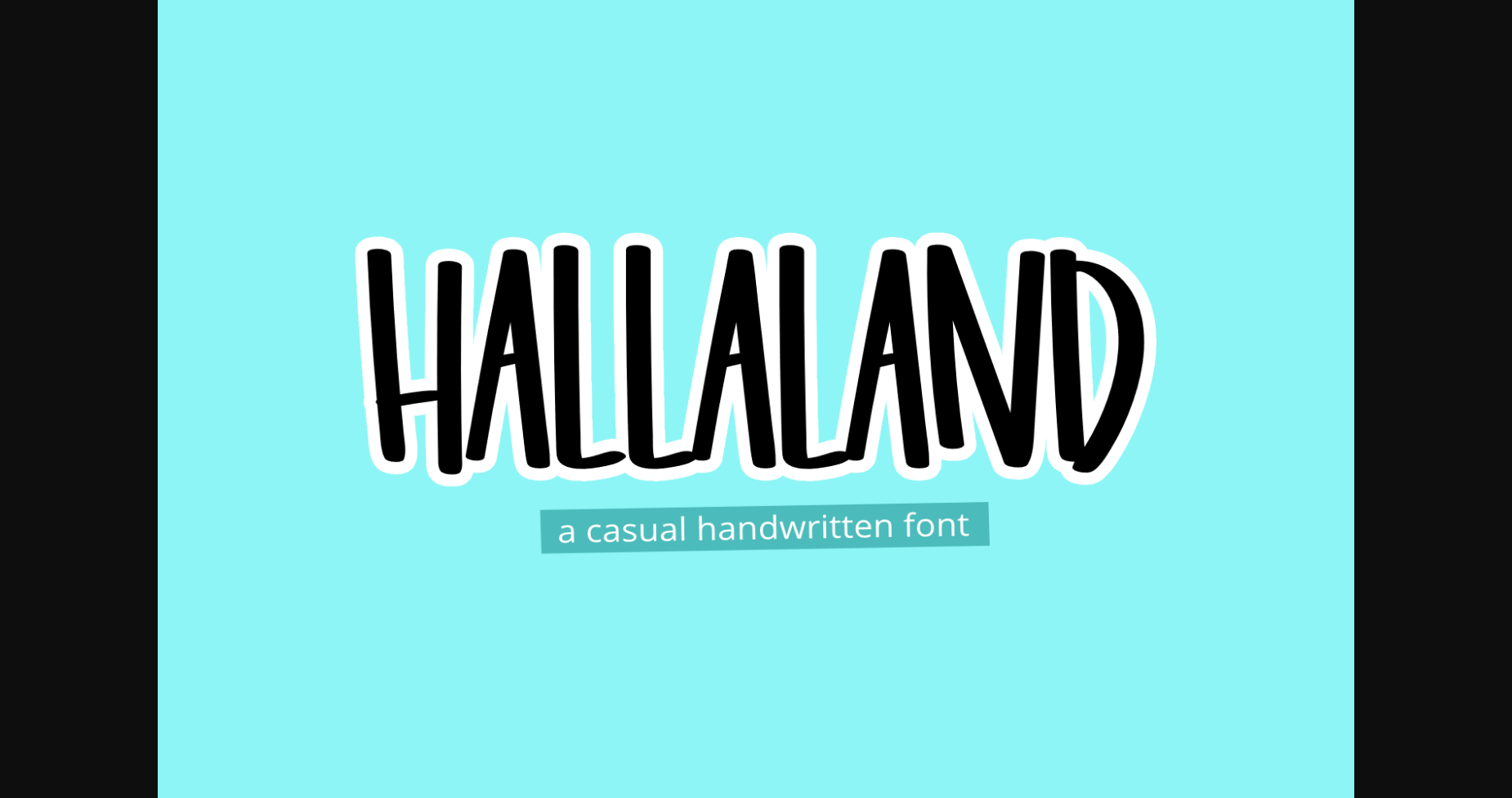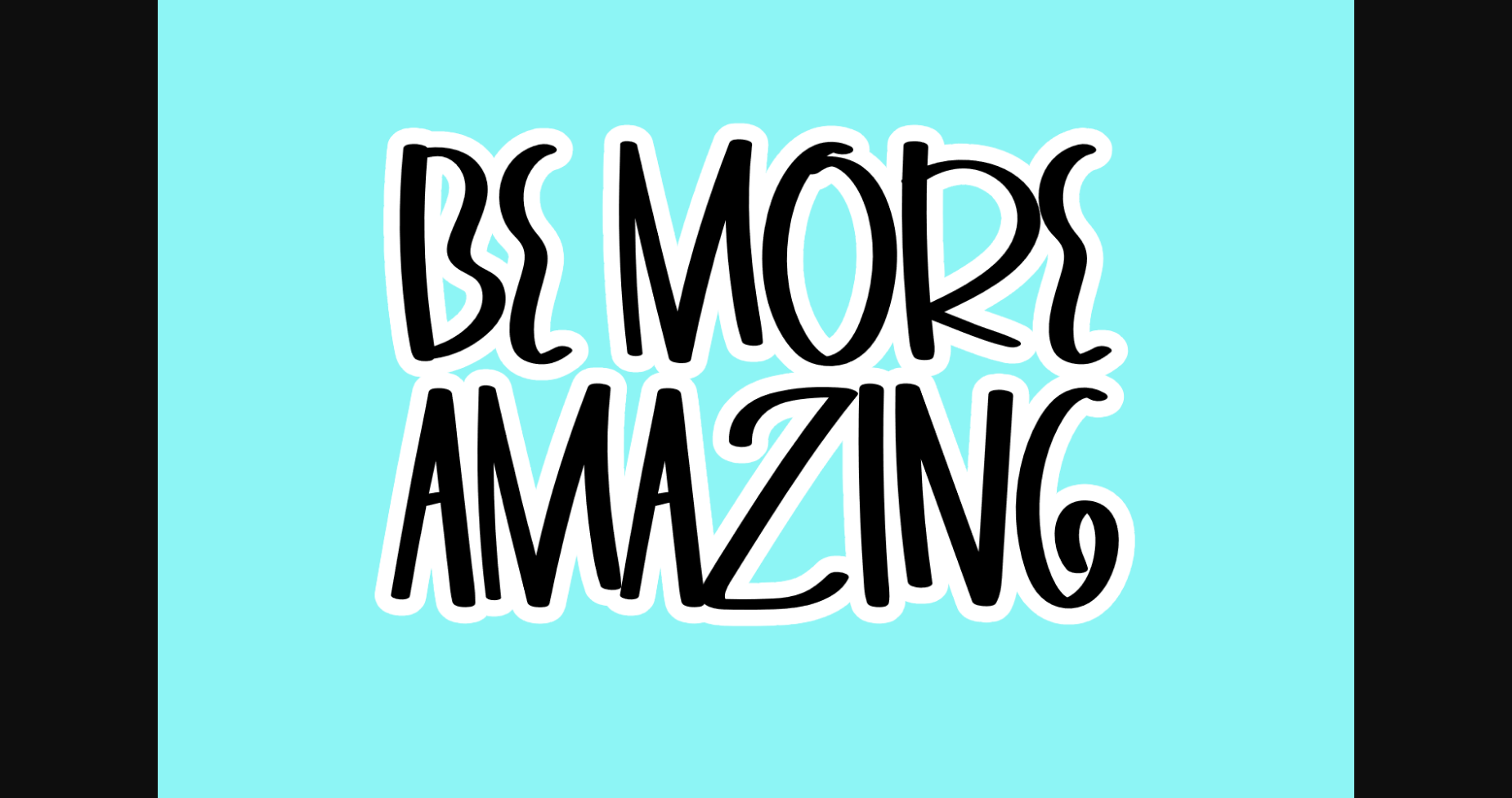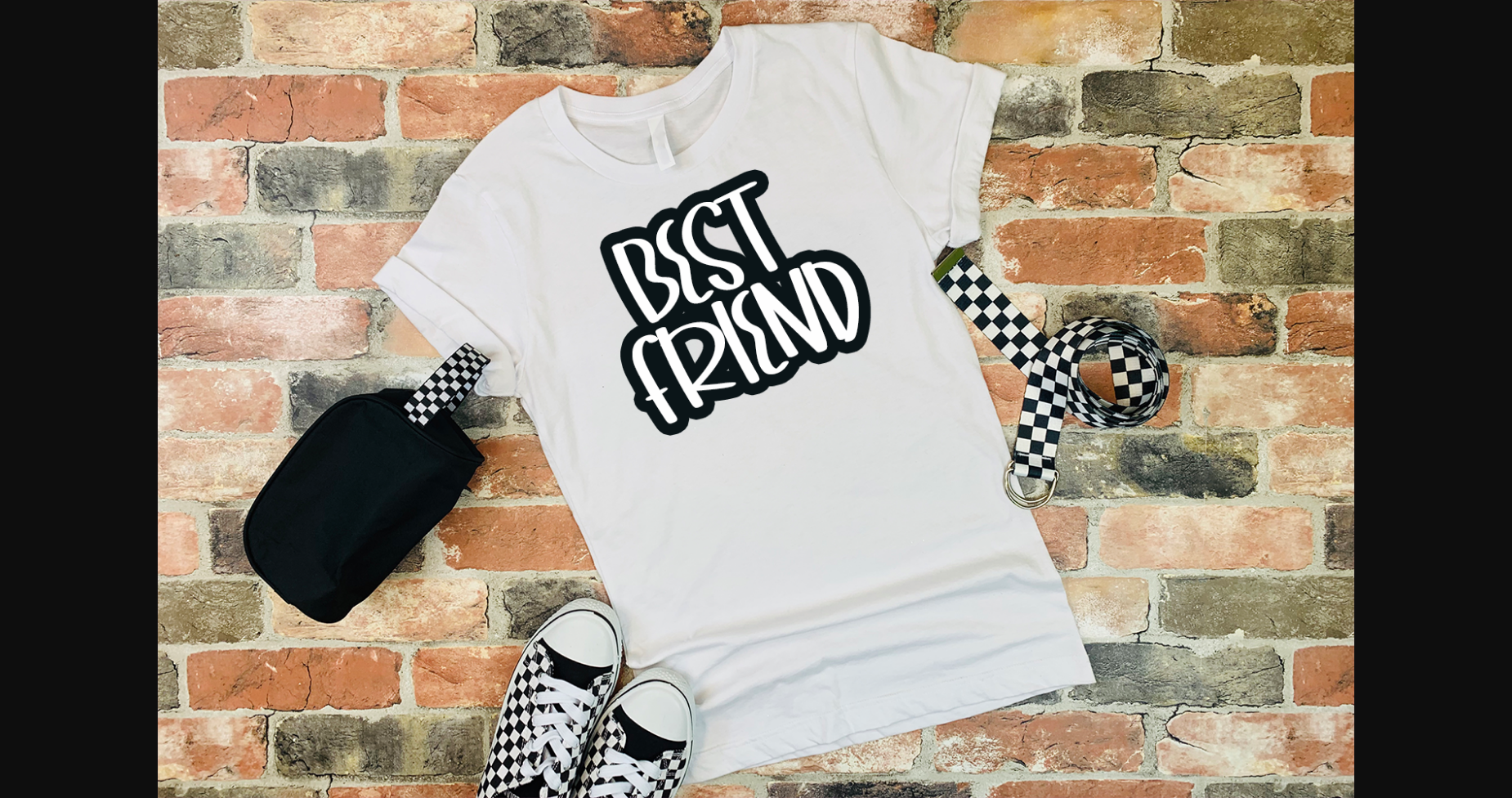
About Hallaland Font
Hallaland is a playful sans serif font. Being both stylish and simple, it can create the most beautiful effect in any creative design!